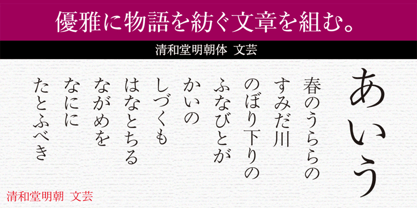
Seiwa Min Bungei Std
After the transition from metal type to phototypesetting, characters could be designed directly through brush writing, featuring elegant and delicate forms. The kanji of "Seiwado Mincho" have further evolved this approach, adjusted to have a snug feel not found in previous Mincho typefaces, and their forms incorporate the appealing taste of traditional body-text Mincho typefaces, resulting in a dignified kanji for text use. "Bungei Kana" has luxuriously matured over time, based on the styles used in phototypesetting for paperback books. It is designed with brush strokes to closely resemble hand painting. The curvatures of the skeleton are akin to brush writing, and the flow of the brush veins has been adjusted to bring out the comforting rhythm of hand-drawn lines.
Seiwado Mincho font places great importance on the flow of characters. It was created with the constant image of the special atmosphere that arises between the work and the reader.